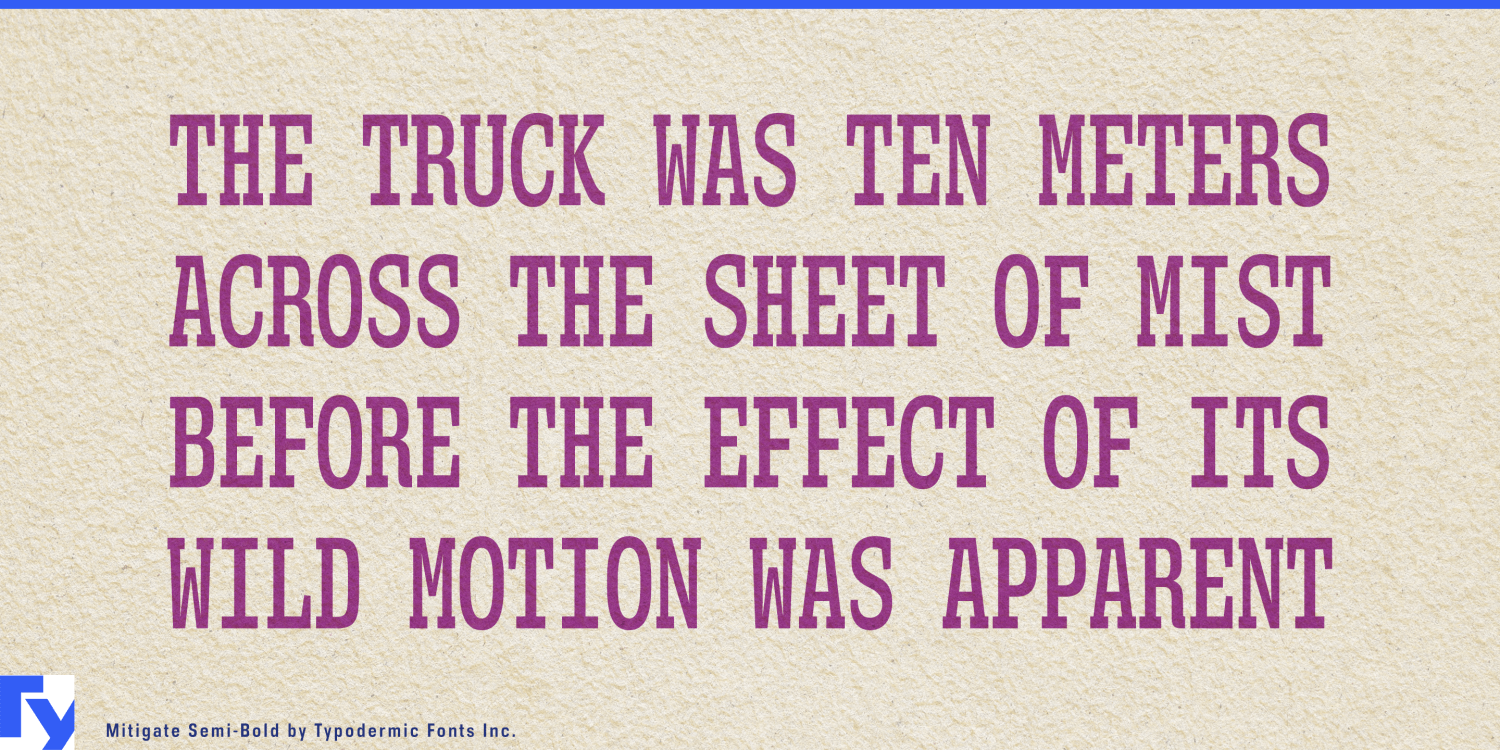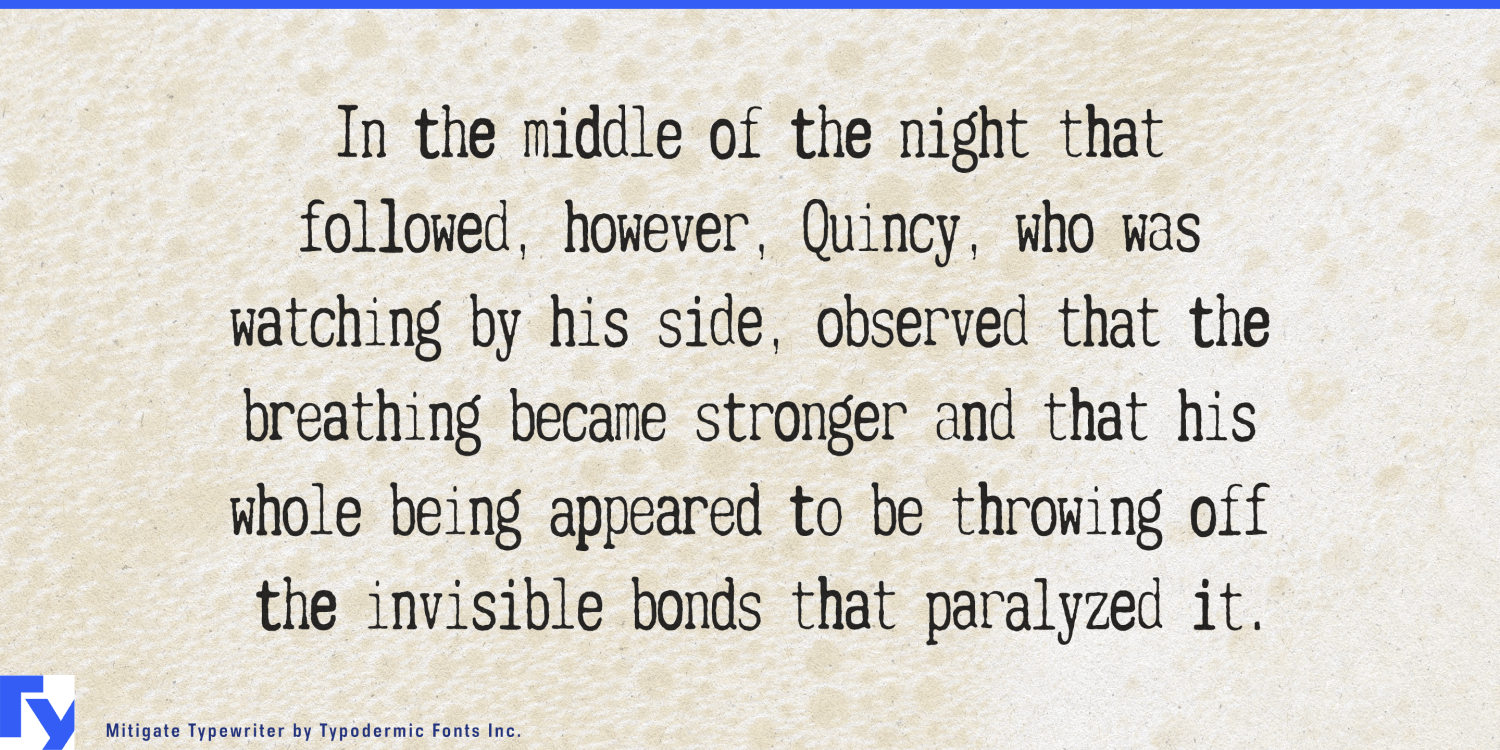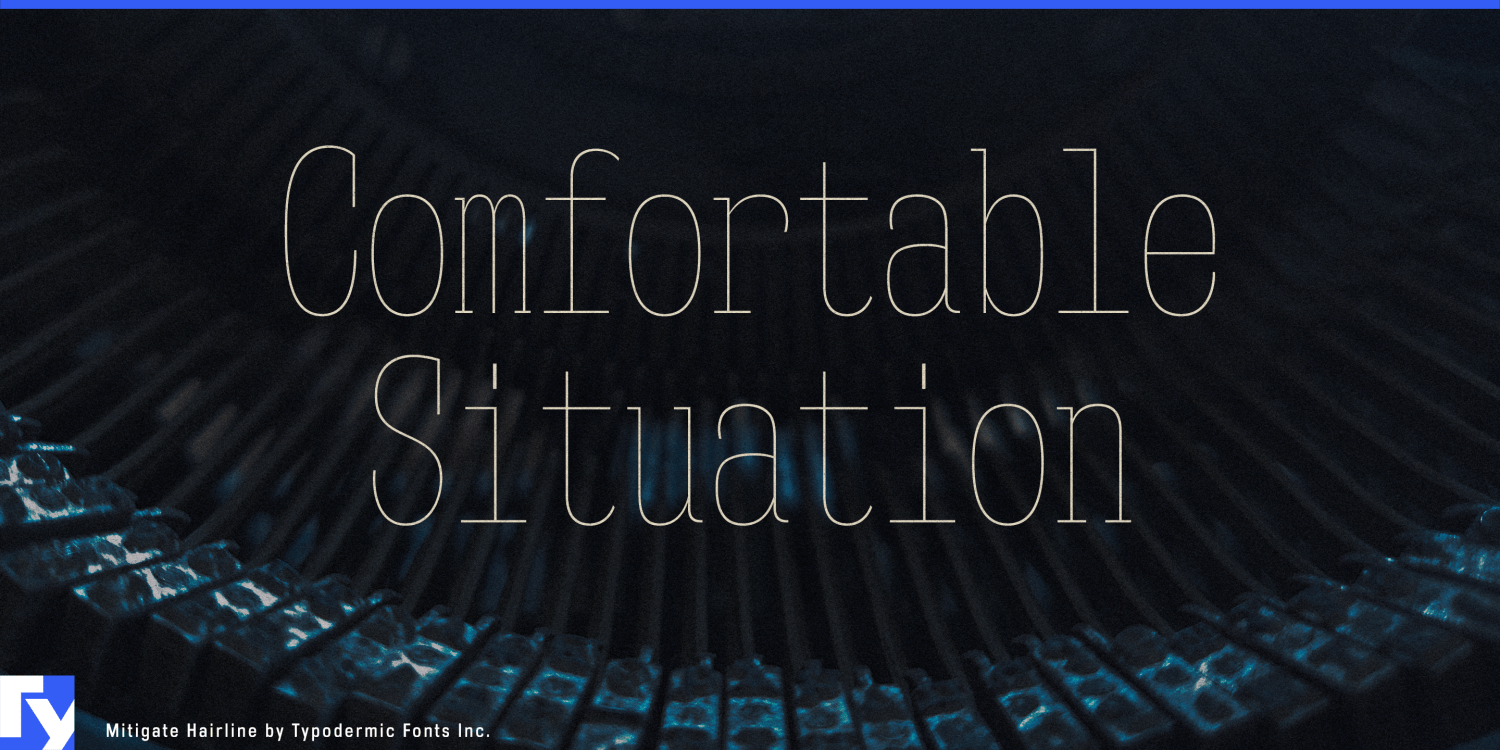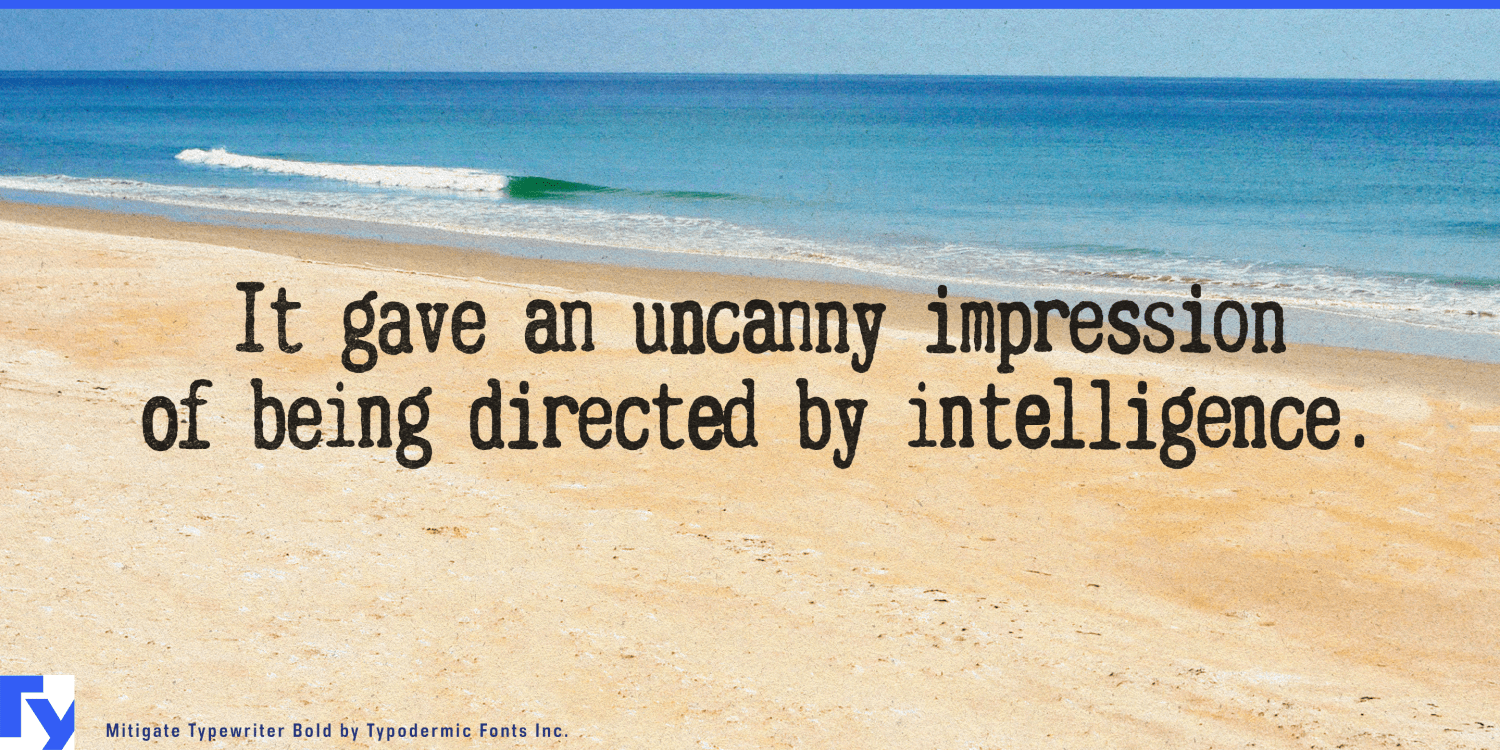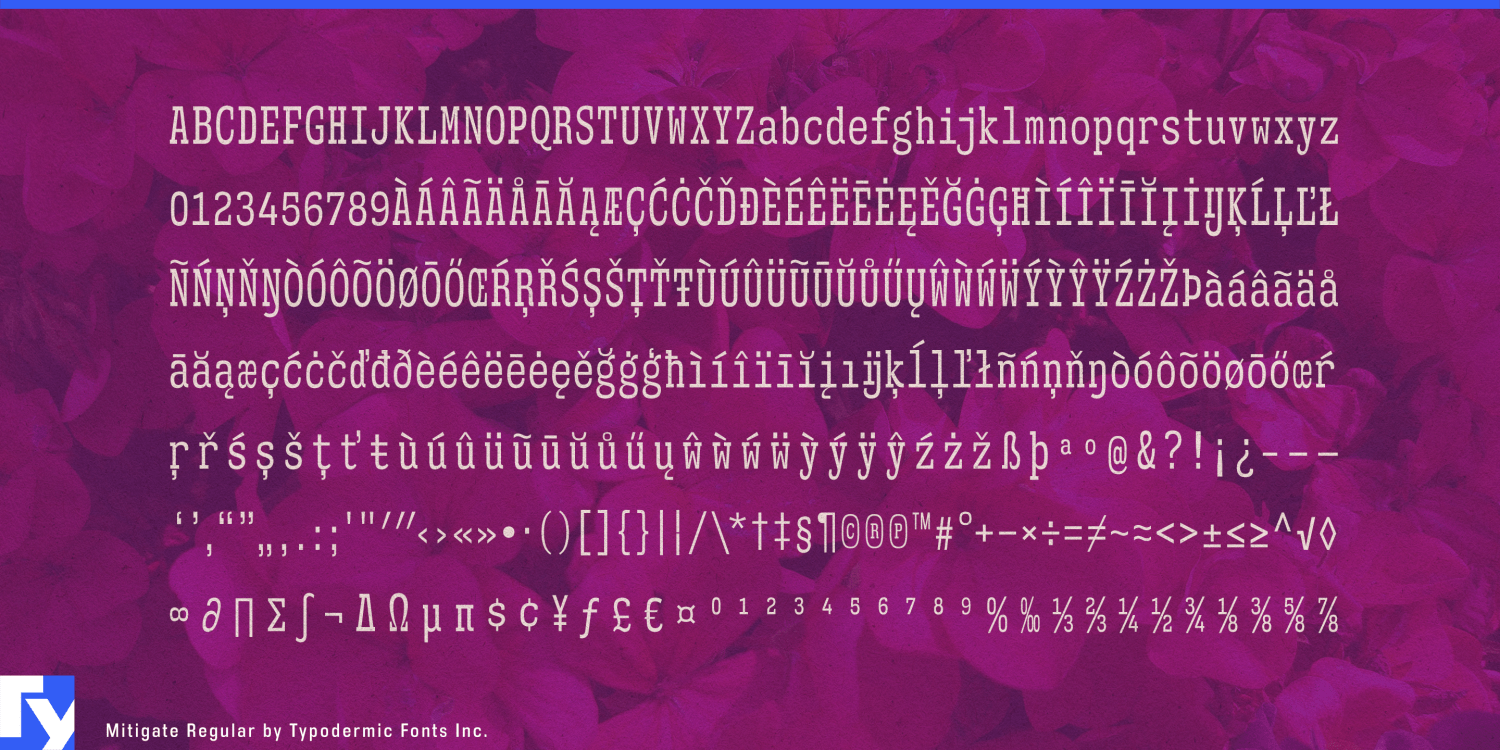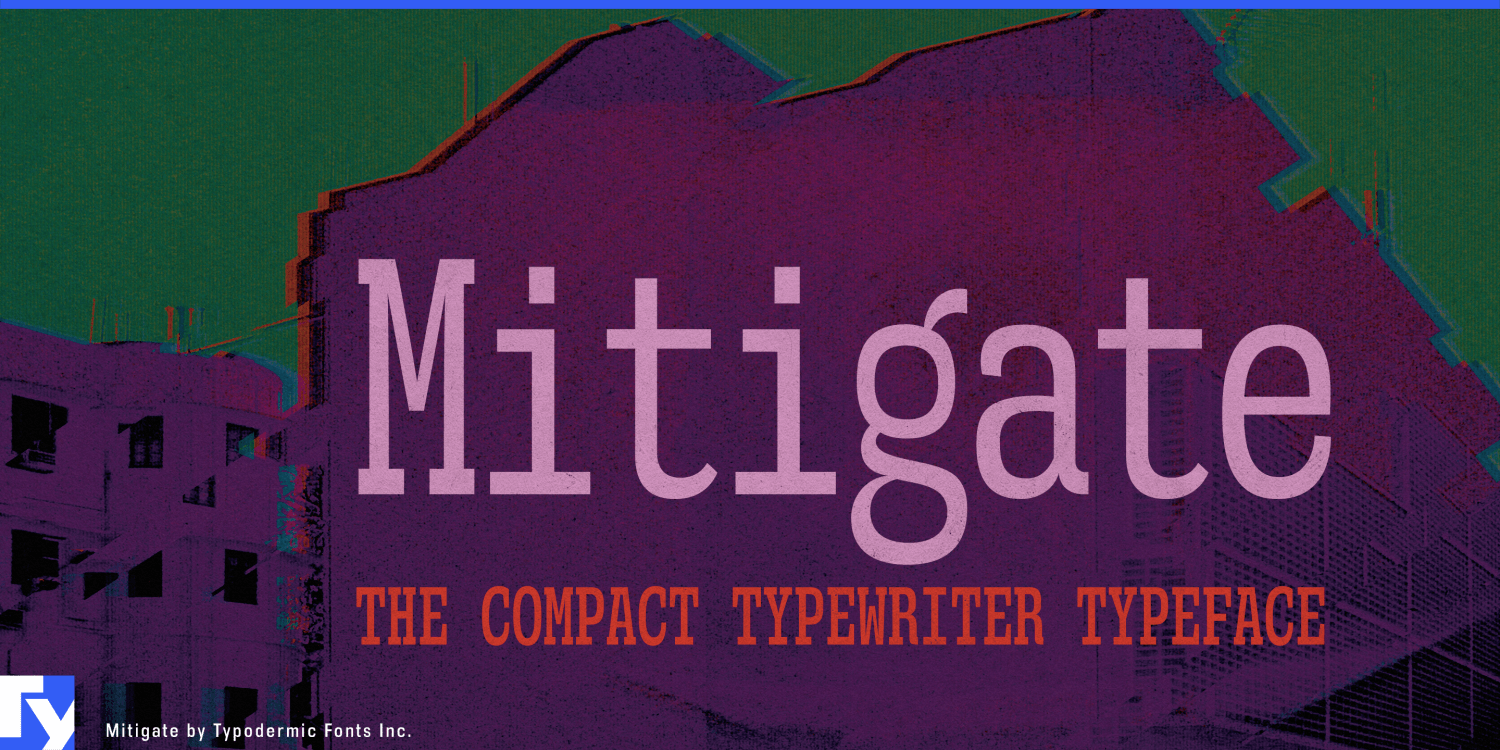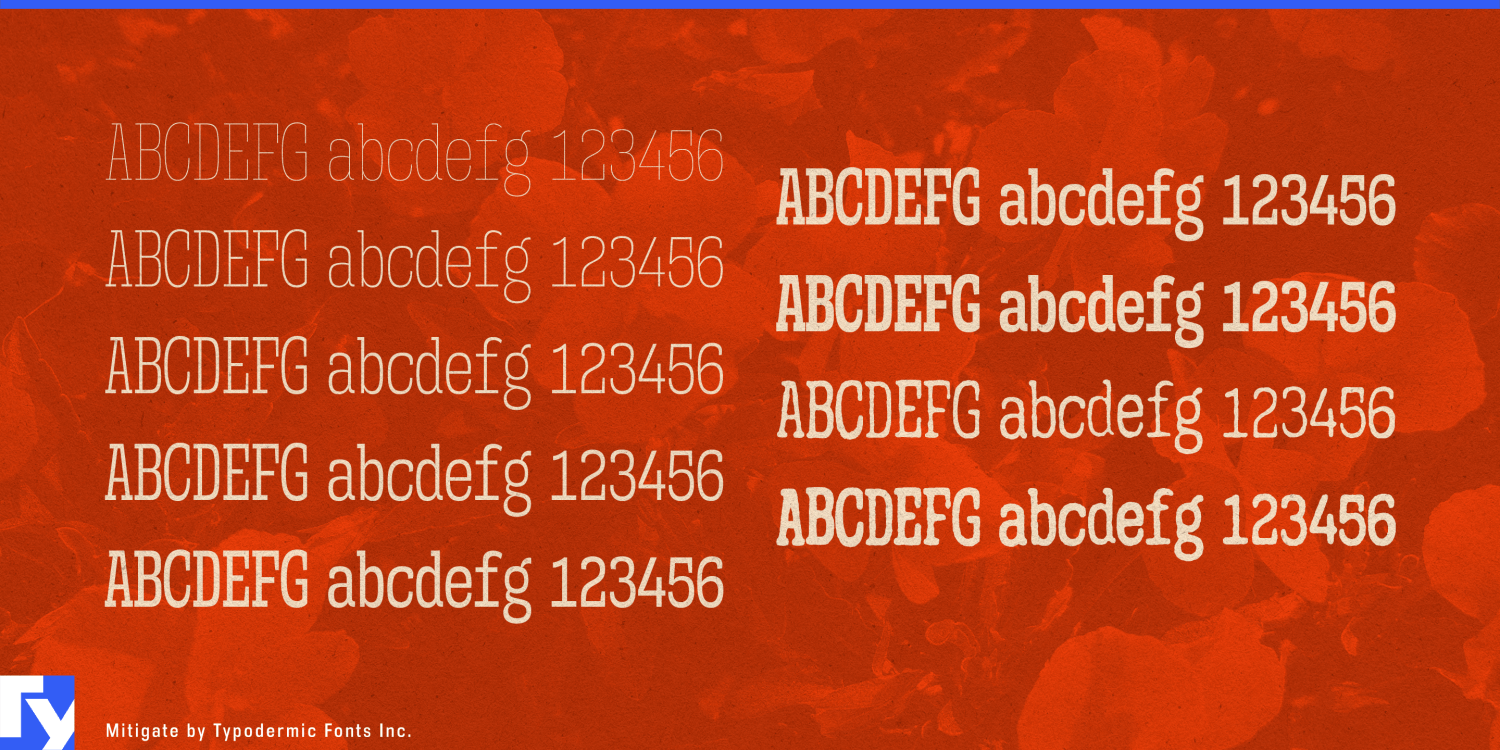
Mitigate
About Mitigate
In the cutthroat world of journalism where deadlines are as tight as yesterday’s headlines, Mitigate bursts onto the scene like a hot scoop on a slow news day. It’s a typographic time machine, squeezing more words into less space than a tabloid…